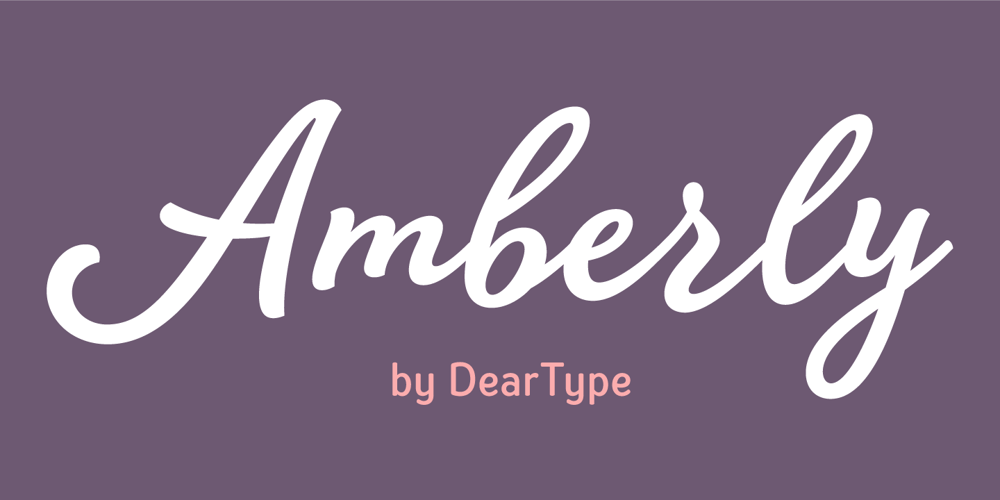
Amberly
Amberly font
Amberly Font Family was designed by Veneta Rangelova and published by DearType. Amberly contains 16 styles and family package options. Meet Amberly! This friendly font family consists of a casual, connecting script that comes in six weights and a cute accompanying sans in ten weights. Amberly Script is fresh and charming, based on a real handwriting, while Amberly Sans is rounded, somewhat narrow and very affable. Both the script and the sans are quite versatile and will fit perfectly on applications where you want the design to appear genuine and full of personality (logos, packaging, posters, cards, titles, blogs, etc.). When it comes to OpenType features, Amberly has a great deal of swashes and alternates, as well as various ligatures to sparkle your creativity. Last, but not least, this playful font family is sure to grab attention and evoke positivity and delight.